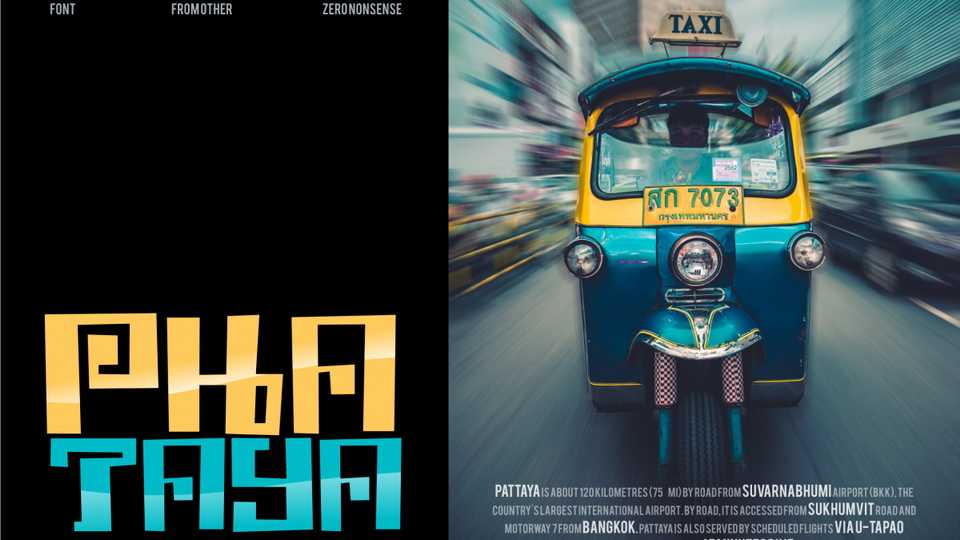
Download Phataya font, a typeface inspired by unique shapes of tagalog type. The quirky and jagged shapes gives the word more energy and impact to the project.